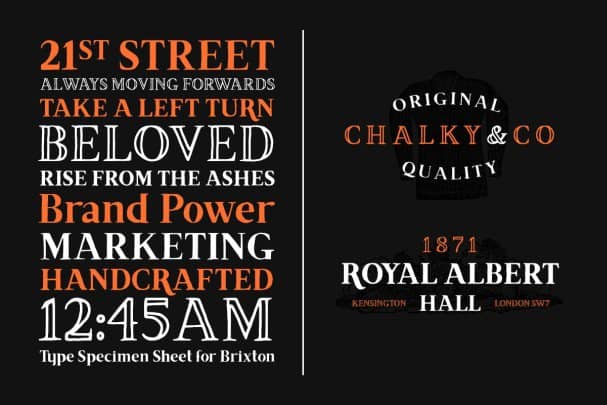
Brixton Font falls into the category of the vector fonts. This is a lead typeface that is similar to the pressed font. This is also listed inside Microsoft word. The fonts took the fee for designing it and freeing it for the first time in view that 2008.
A rare and precise texture of this typeface wherein it seems like fonto font that created with a single stroke.
Style of Brixton Font Free